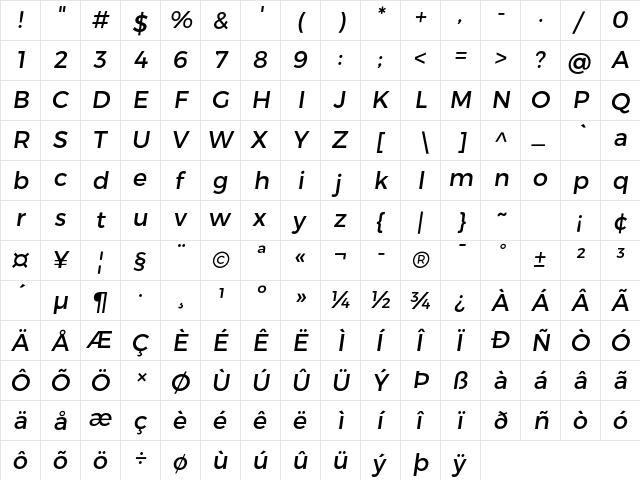
Trueno RgIt Font Preview
Trueno RgIt
Trueno RgIt Font Details
| Style | RgIt |
| Foundry | Julieta Ulanovsky |
| Designer | Julieta Ulanovsky |
Design Context for Trueno Typeface
Trueno takes a measured approach to typography — its balanced proportions and neutral character make it a reliable workhorse for both digital and print work.